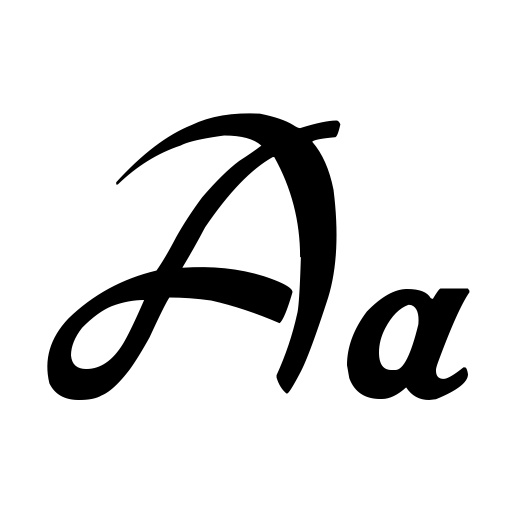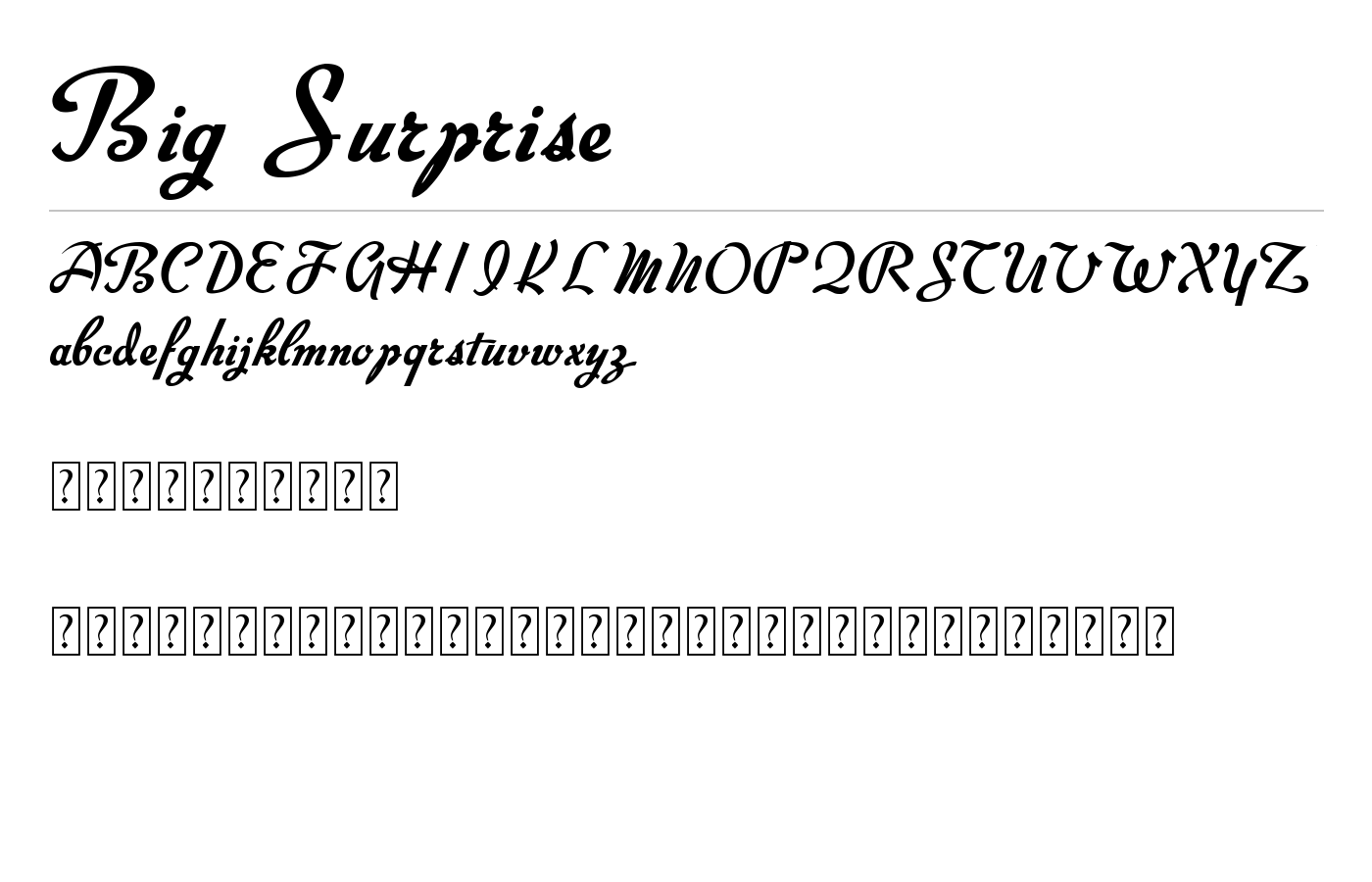
Big Surprise is a stylish script font that combines elegant curves with a lively, handwritten feel. Its medium weight and smooth, flowing strokes make it perfect for adding a touch of personality and sophistication to invitations, logos, and packaging. This font works beautifully where a playful yet refined look is desired, making it ideal for creative branding and decorative headlines.
Big Surprise Font
About Big Surprise Font
| Font family | Big Surprise Font |
| Designer | IMAGEX |